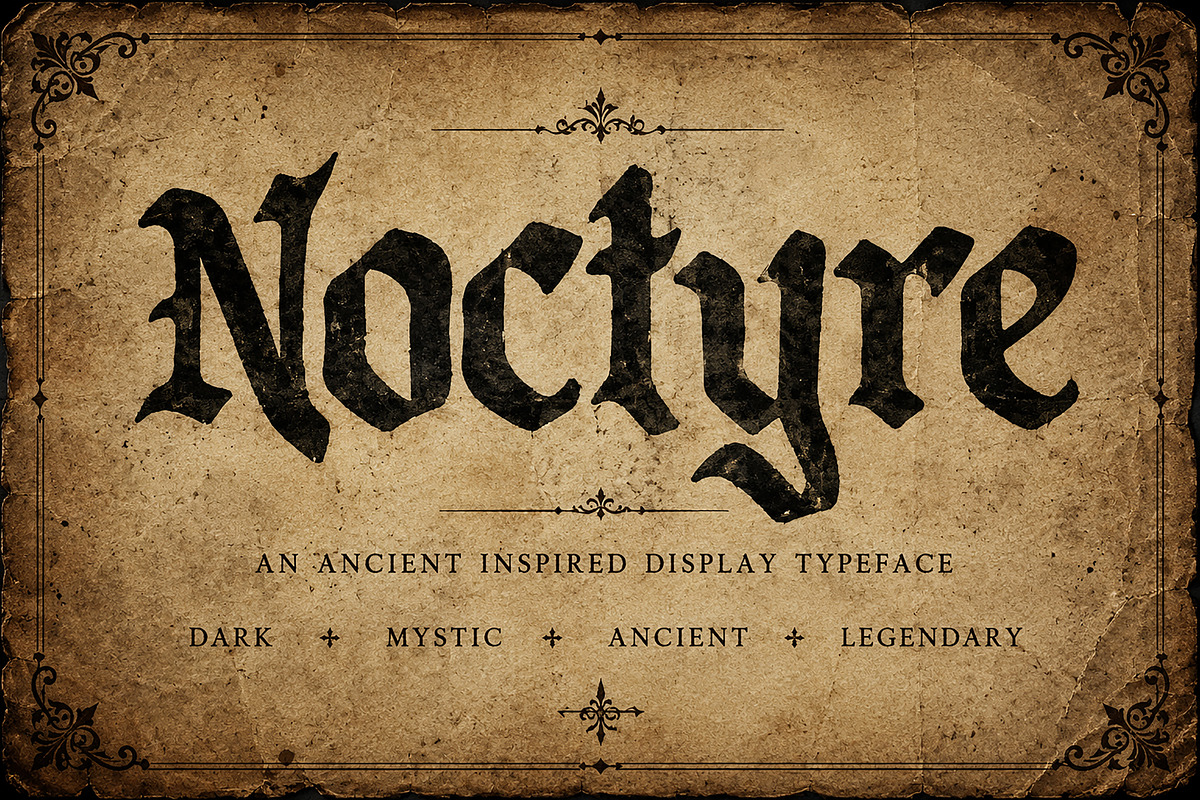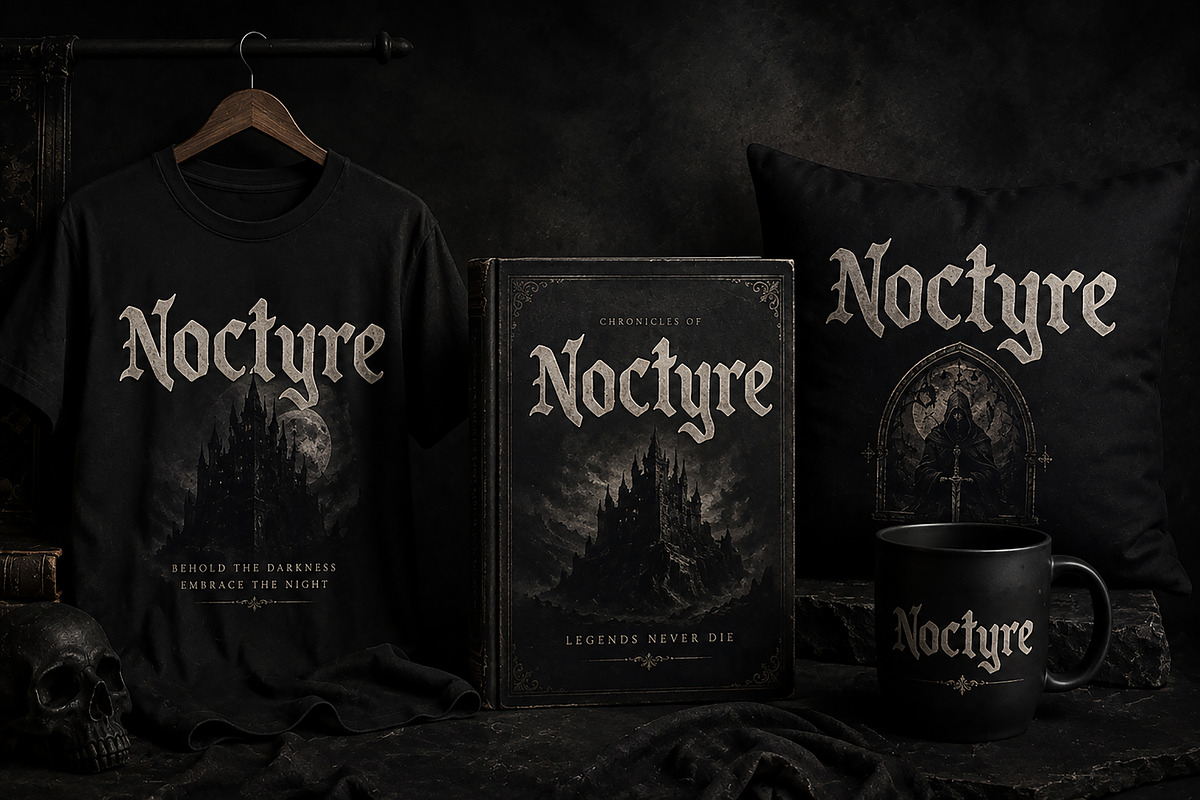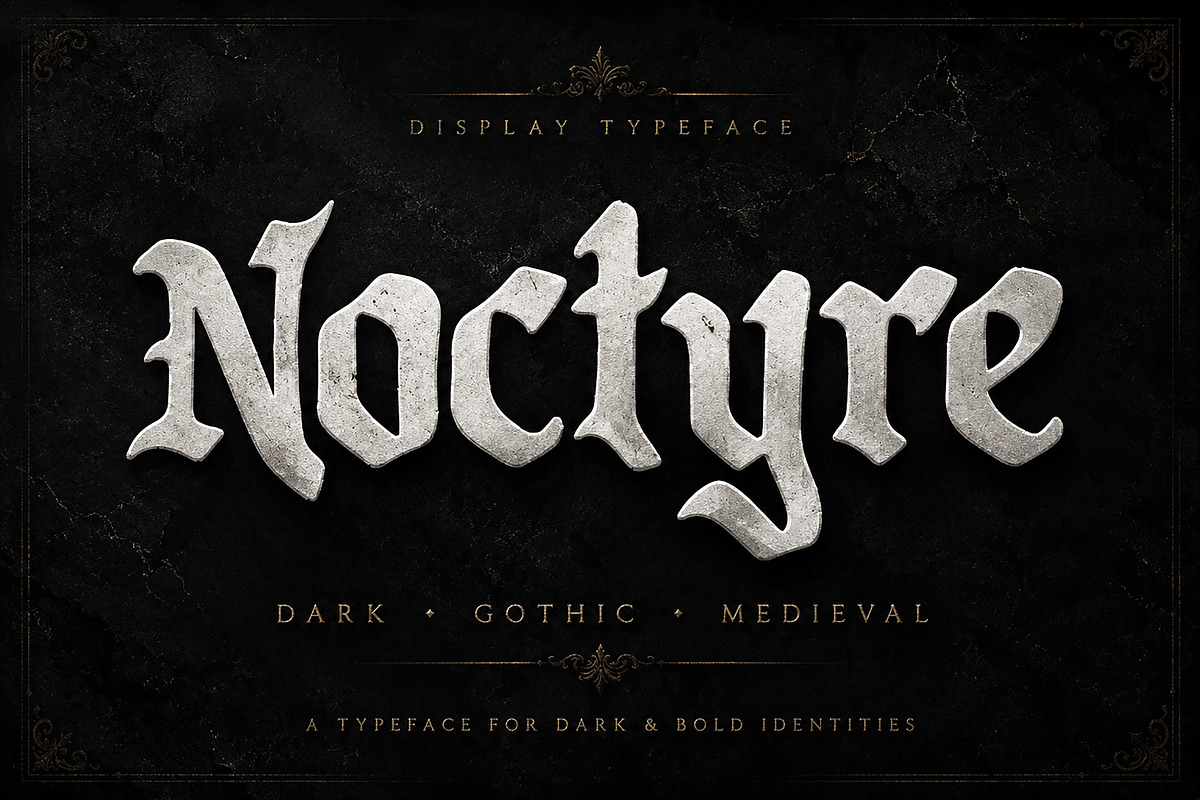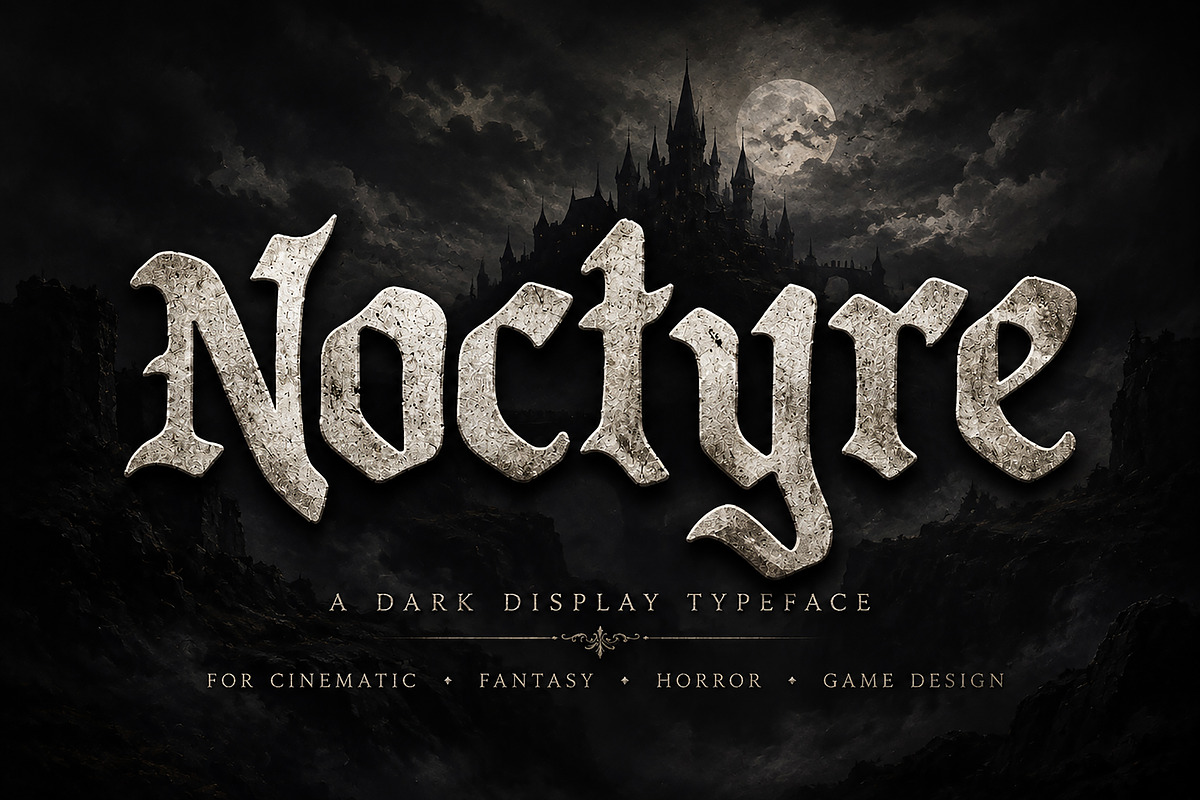
NOCTYRE
NOCTYRE – DARK GOTHIC DISPLAY TYPEFACE
Noctyre is a bold and atmospheric gothic display typeface designed to bring a dark, mysterious, and medieval-inspired character to your creative projects.
With its distinctive blackletter-inspired forms and dramatic visual presence, Noctyre is perfect for projects that need a strong, timeless, and mysterious identity.
Logo & Brand Identity
Gothic Branding
T-Shirt & Apparel Design
Fantasy Projects
Dark Poster Design
Movie & Game Titles
Album & Music Artwork
Editorial & Promotional Design
Noctyre works especially well for dark fantasy, medieval, gothic, mysterious, alternative, and cinematic-inspired designs.
Give your next design a powerful gothic atmosphere with Noctyre.